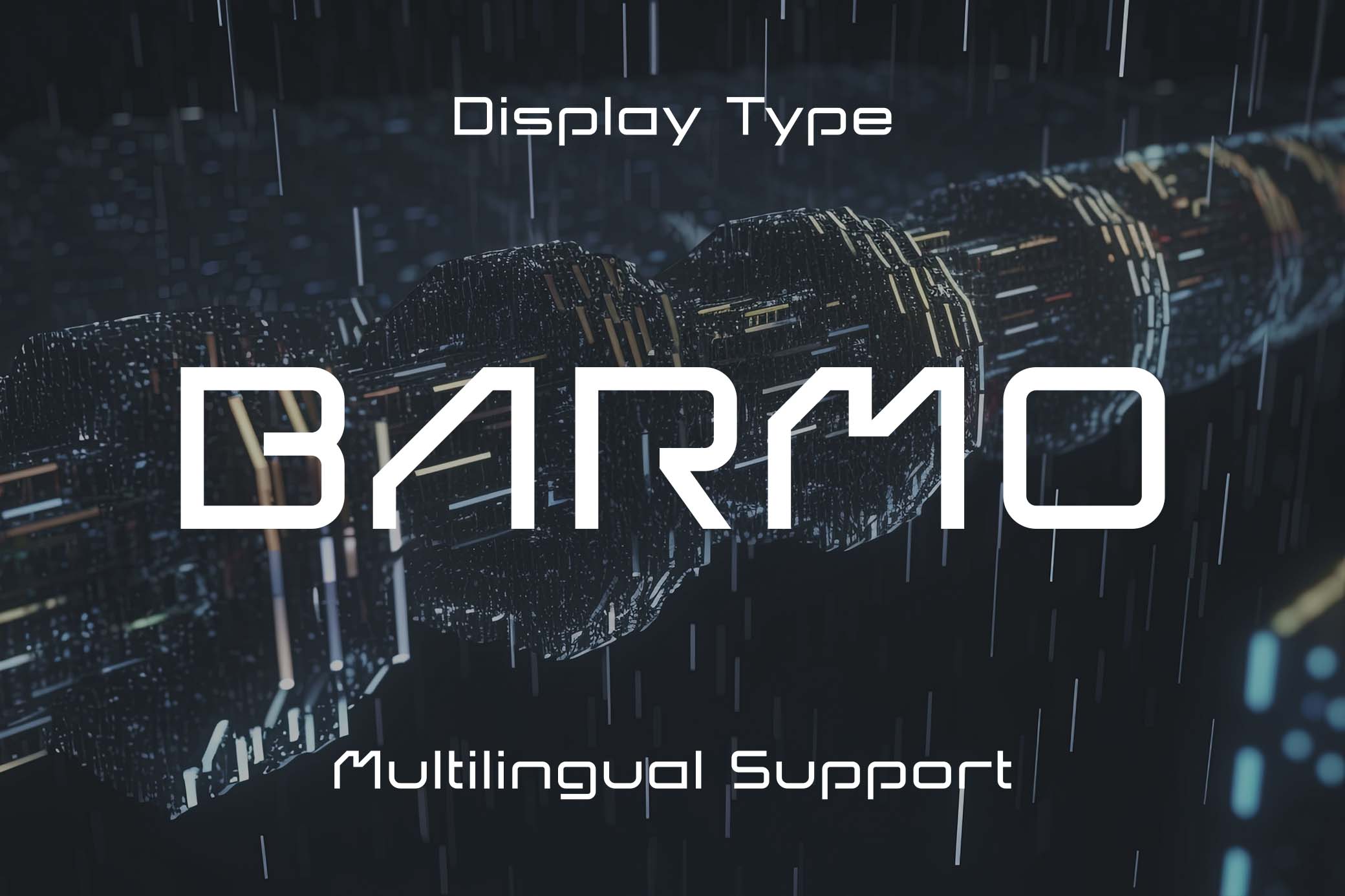
Barmo Futuristic Tech Font
Humanity always wonders what is waiting for us in the future. Though this font isn’t about the basics of philosophy, it allows us to take guess what trends will look like in the next century!The bold angular letter shapes are the classics of futuristic typography which form the basis of Barmo. But no need to sigh — it’s not another boring font, this one looks fresh and stylish while keeping it simple! Headlines, branding designs and other projects will transform drastically once you add Barmo to them. The 220+ glyphs including punctuation and numerals are waiting for you inside, so have fun!This resource is created, and fully compatible with Adobe Photoshop. For the best experience, we recommend to use the latest Creative Cloud version of the app.